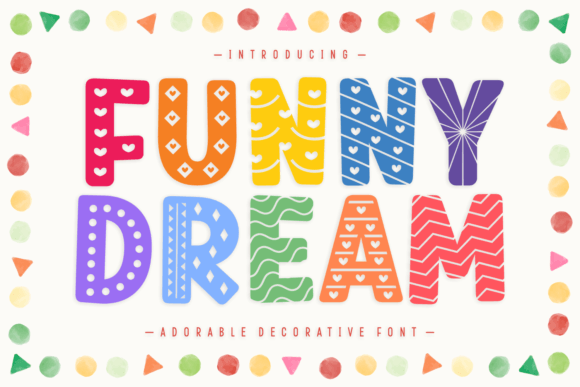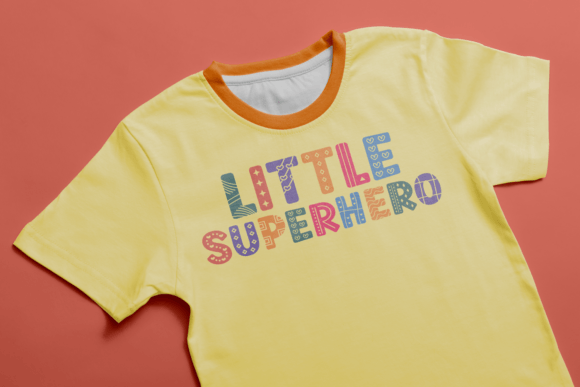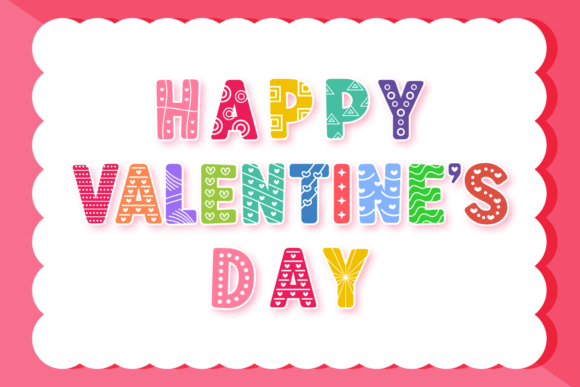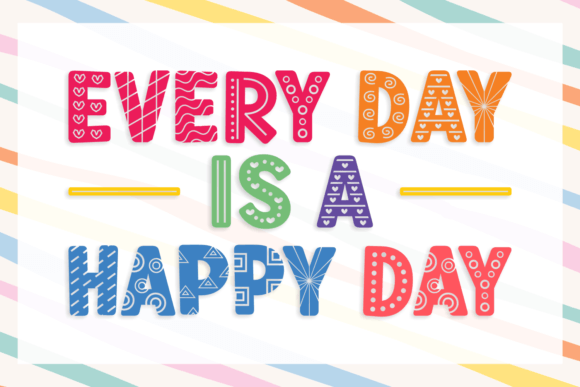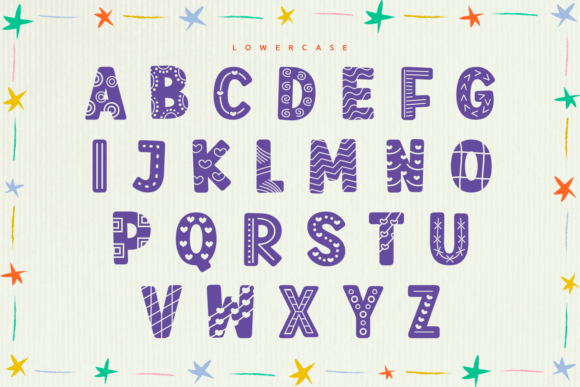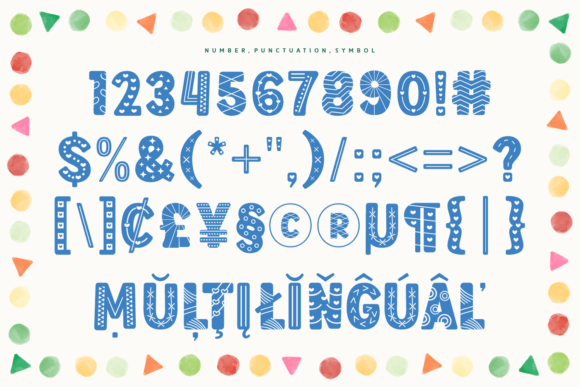
Funny Dream is a cute, friendly, and incredibly versatile decorative font. Its cheerful and positive vibe, will definitely brighten up each of your designs!
Funny Dream Font